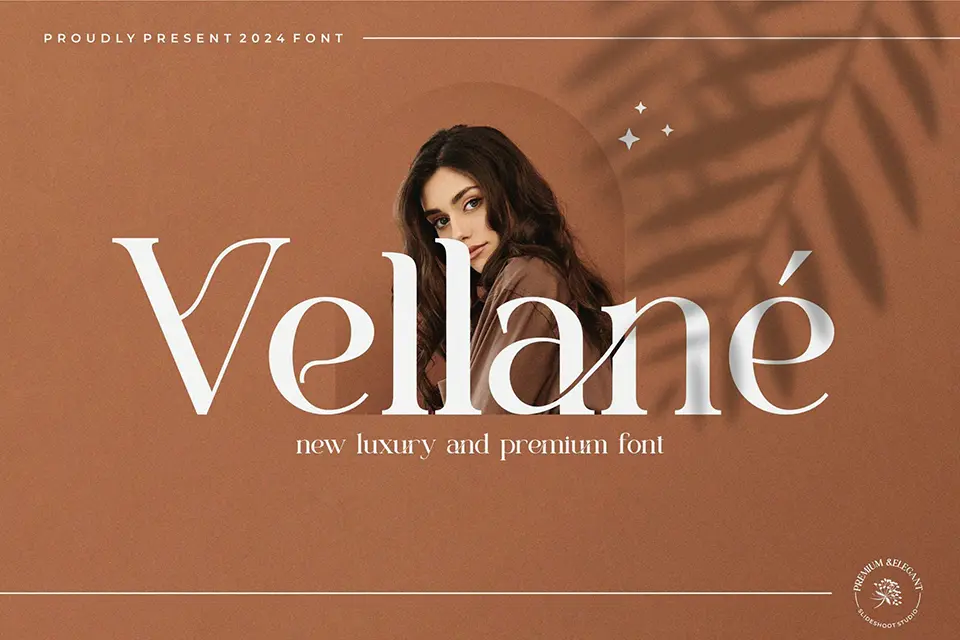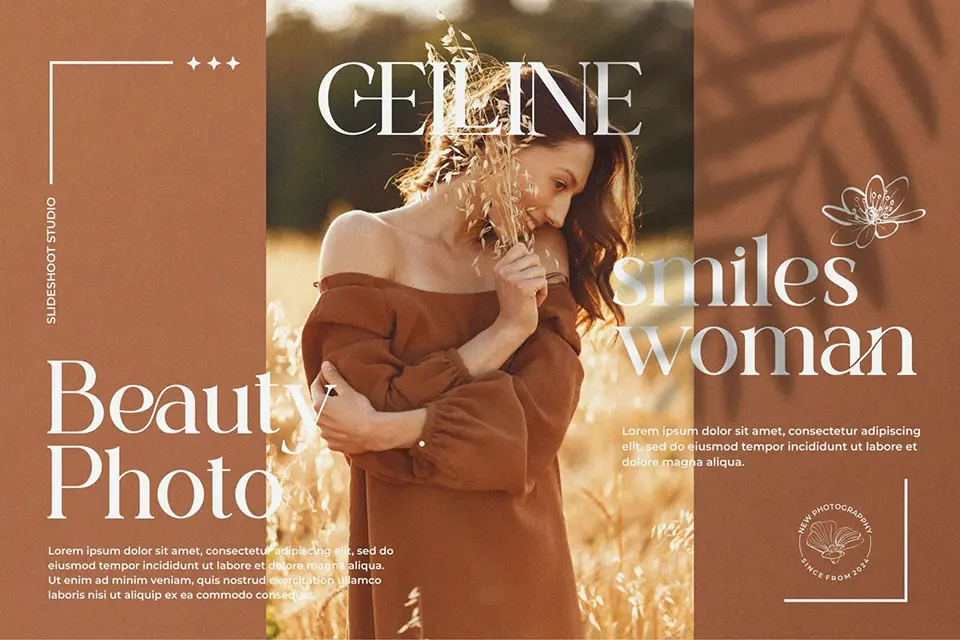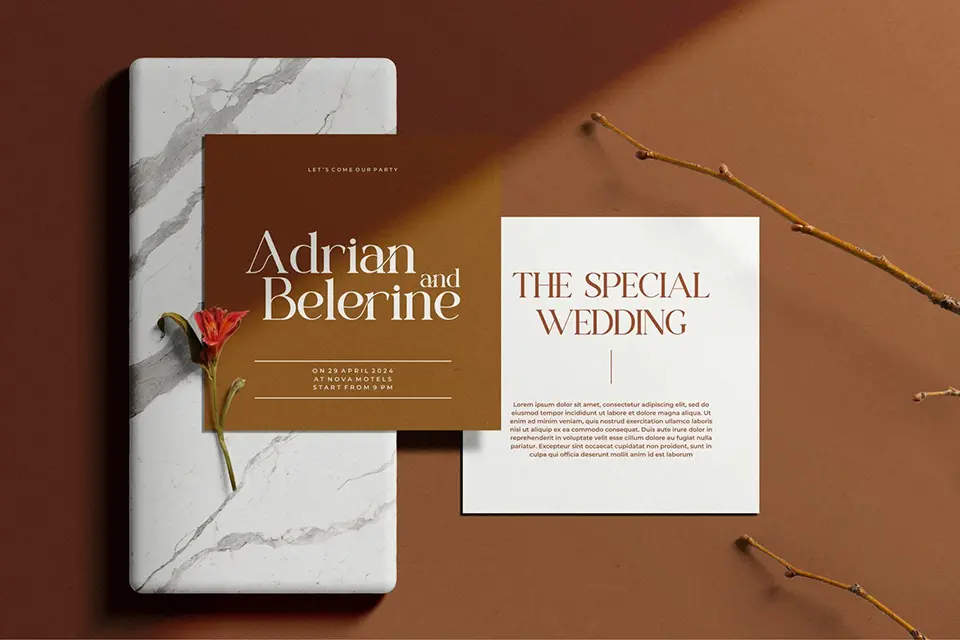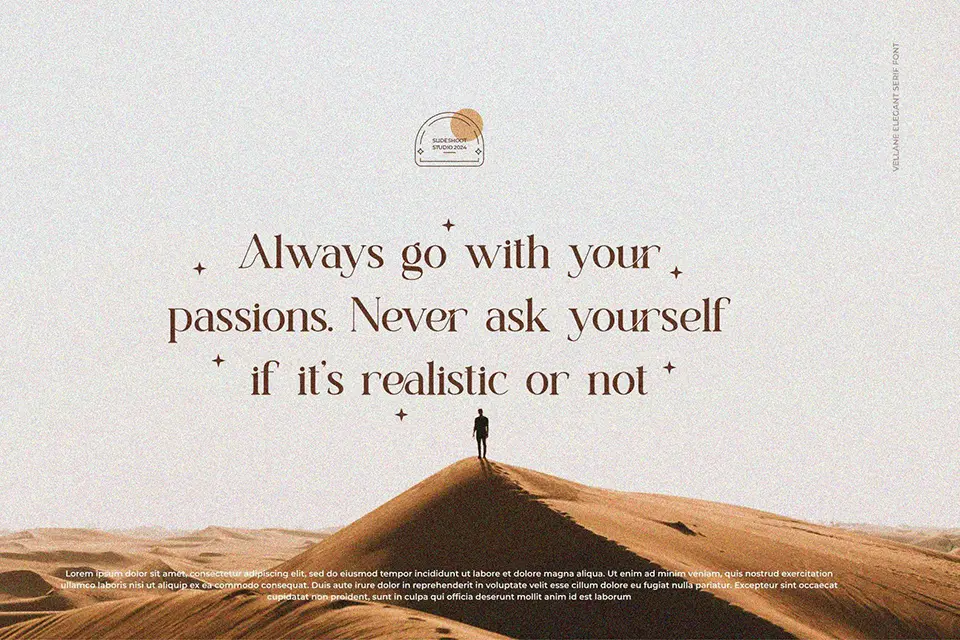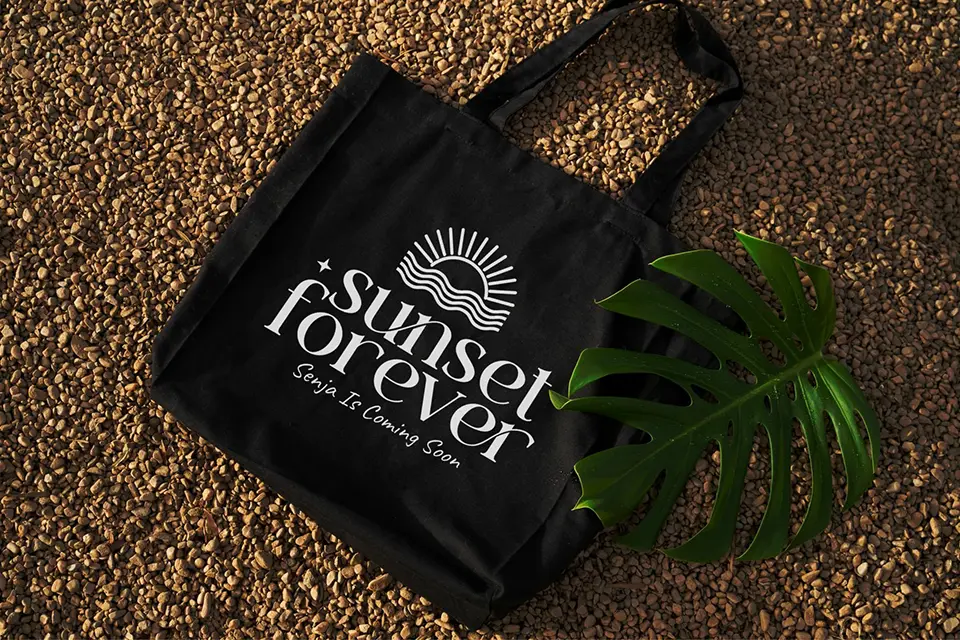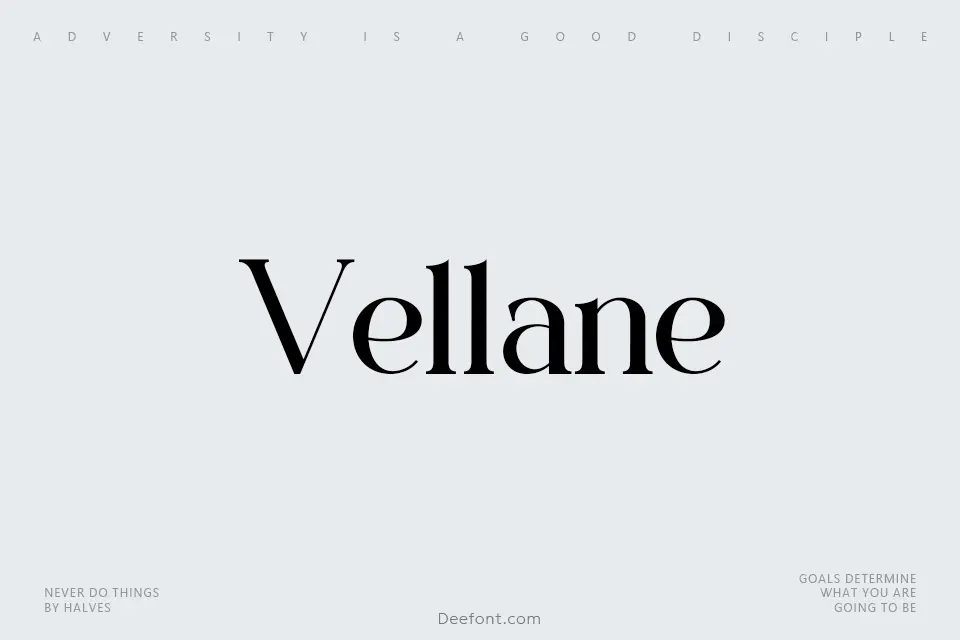
Vellane Font
Vellane Font is a luxurious and elegant serif typeface designed to elevate high-end creative projects. With its refined letterforms, stylish curves, and sophisticated details, Vellane exudes a premium aesthetic that is perfect for branding, logos, editorial layouts, and packaging. The font’s modern yet timeless design ensures versatility across various applications, making it ideal for fashion, lifestyle, and luxury themes. Its clean lines and graceful proportions create a polished and professional look while maintaining visual appeal. Whether used for bold headlines or subtle text compositions, Vellane Font adds a touch of elegance and exclusivity to any design project.